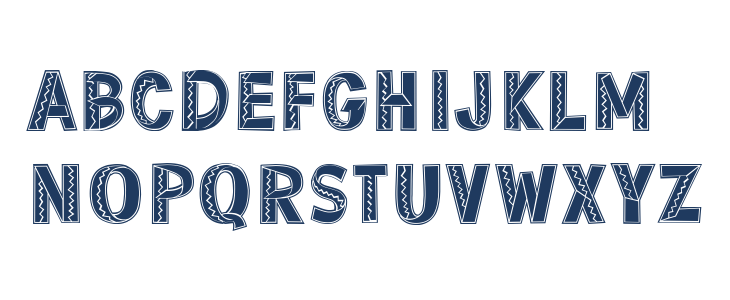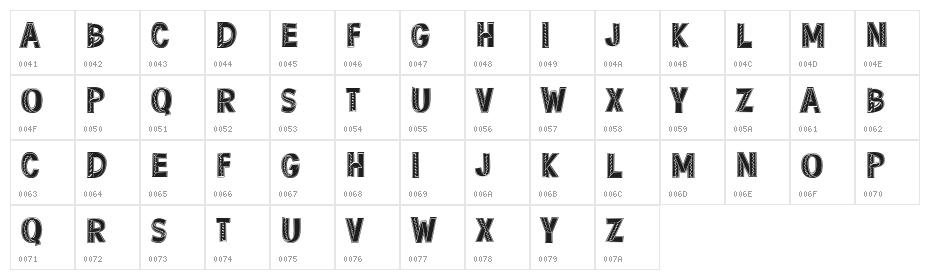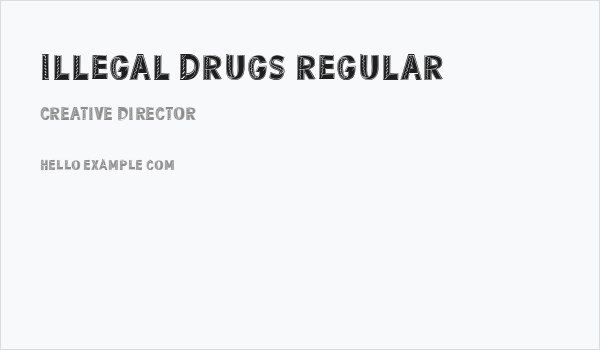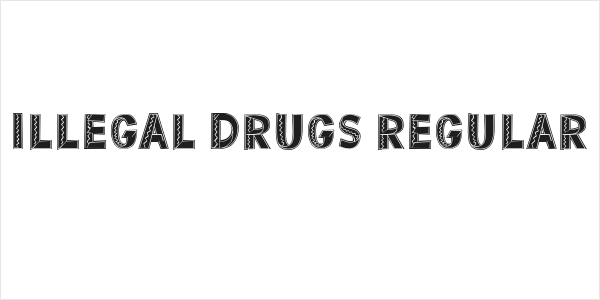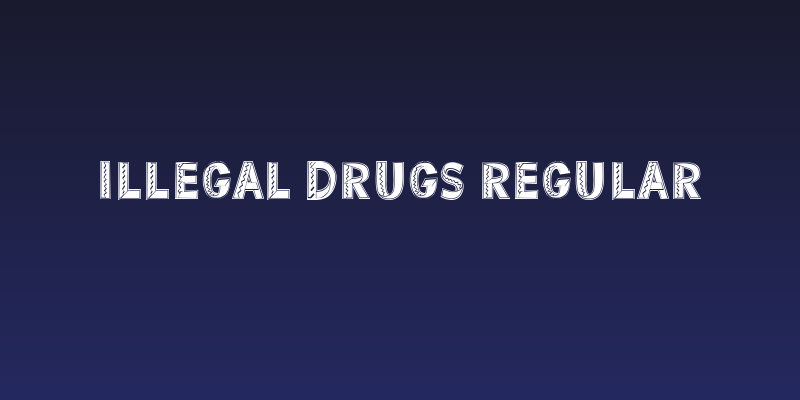
Illegal Drugs Regular Font
Illegal Drugs Regular Description
A bold, uppercase decorative font with a solid black fill and white zigzag or dashed line patterns inside each letter, giving it a playful and edgy appearance. The letterforms are geometric and blocky, with consistent stroke width and no serifs.
| Overall Style | Decorative, Playful, Edgy |
| Proposed Projects | Posters, event flyers, album covers, branding for youth-oriented products, party invitations. |